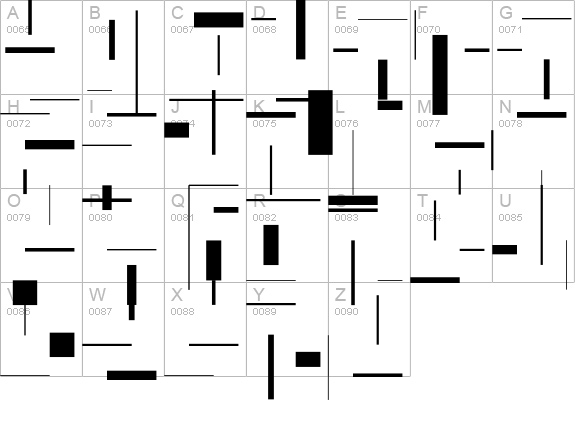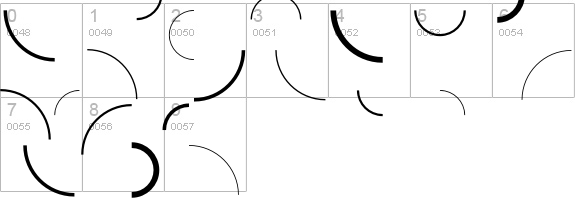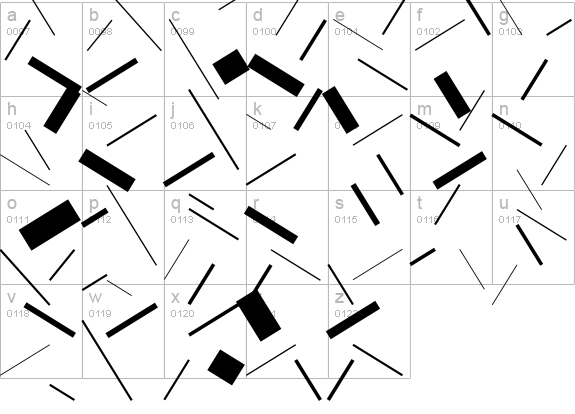
Fibonacci Font Details
Fibonacci font is a beautifully crafted typeface that embodies elegance and sophistication. With its sleek lines and balanced curves, Fibonacci is the perfect choice for projects that require a touch of class. This font exudes a timeless charm that is sure to captivate any audience. What sets Fibonacci font apart is its unique blend of modern aesthetics and classic appeal, making it a versatile option for a wide range of design applications. Whether you're creating a logo, branding materials, or a website design, Fibonacci font will elevate your project to new heights. Best of all, Fibonacci font is free to download at FontsMarket.com. This means that you can access this stunning typeface without any cost, making it a valuable addition to your design toolkit. Don't miss out on the opportunity to enhance your projects with the beauty and sophistication of Fibonacci font. Download it today and see the difference it can make in your designs.